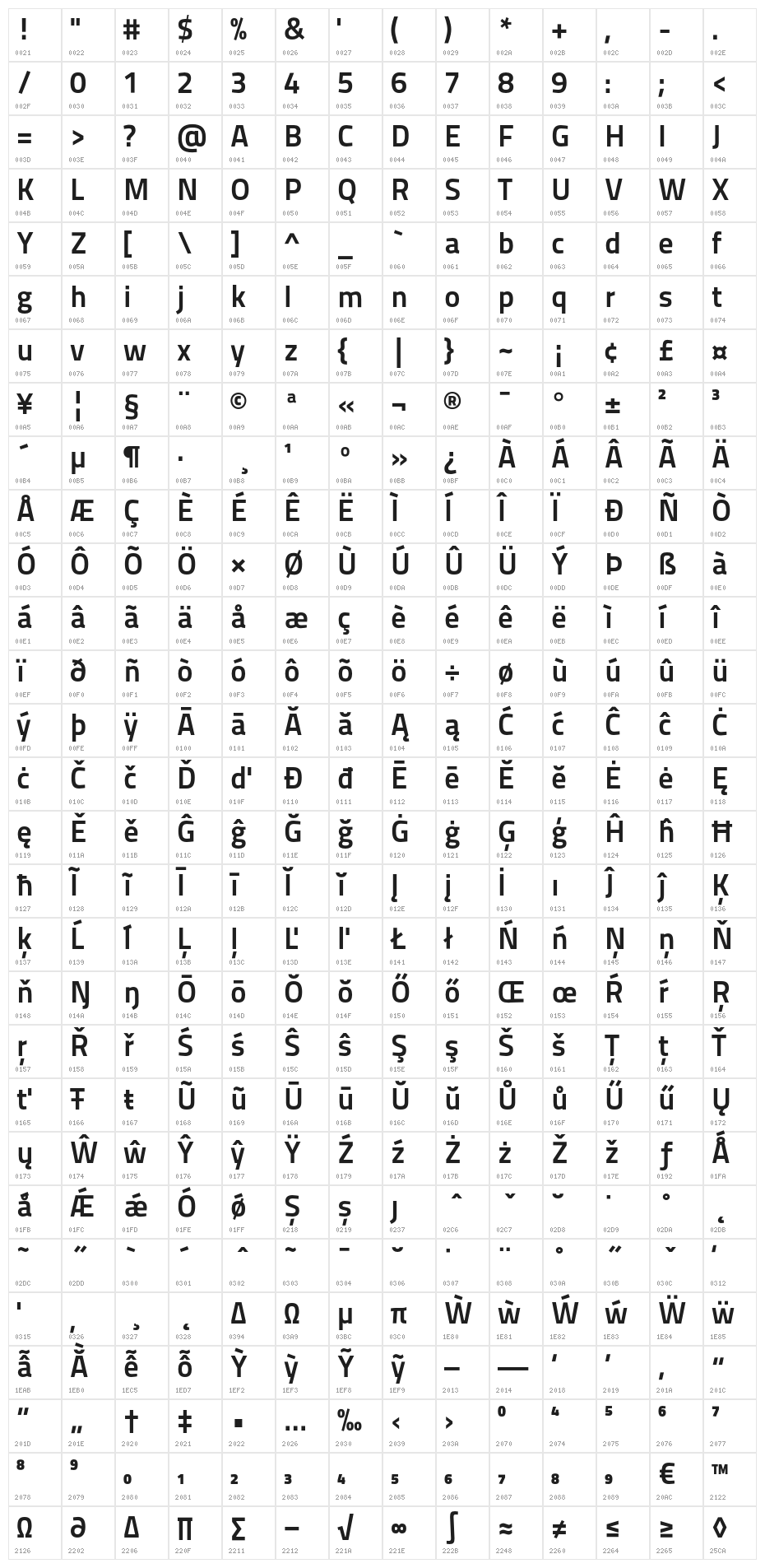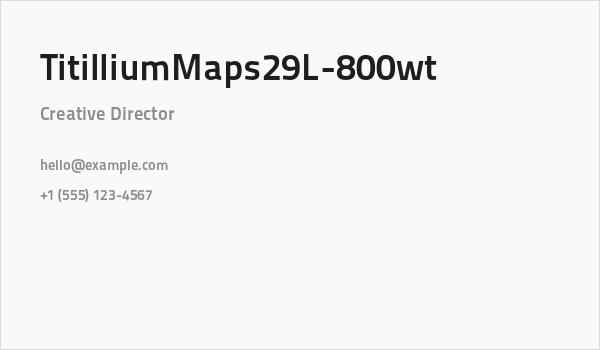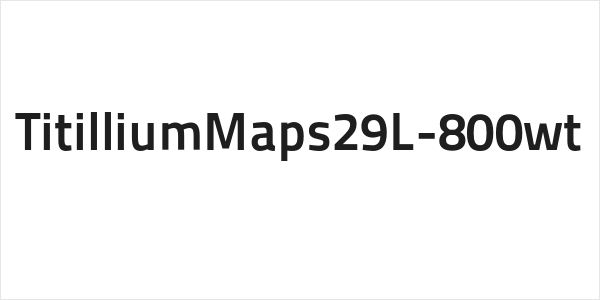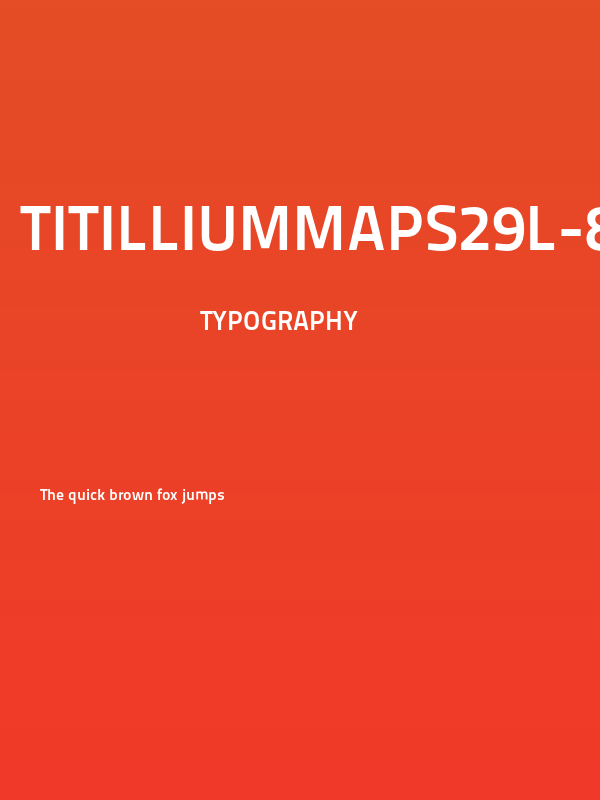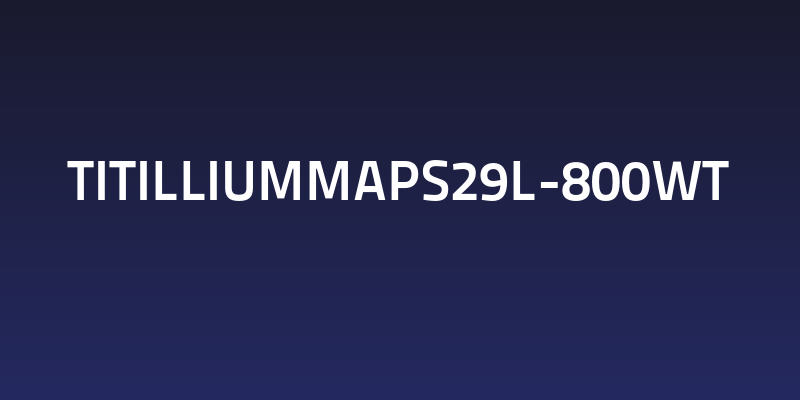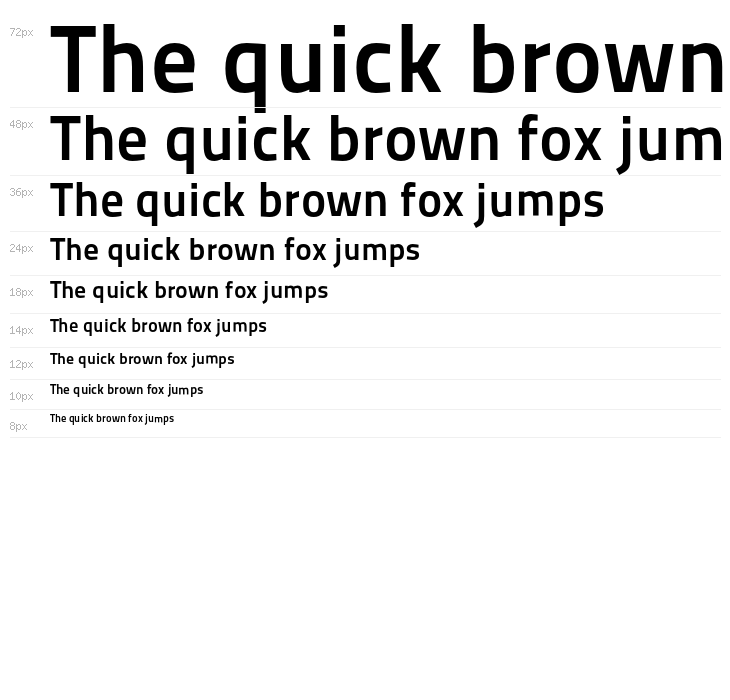
TitilliumMaps29L-800wt Font
TitilliumMaps29L-800wt Description
This font features a clean and modern sans-serif design, characterized by its geometric shapes and uniform stroke widths. The uppercase letters are bold and assertive, while the lowercase letters maintain a consistent height, offering a balanced and harmonious appearance. The numerals are clear and easily distinguishable, making them suitable for both digital and print applications. Special characters are well-defined, ensuring versatility across various contexts. The overall design is sleek and professional, making it ideal for contemporary projects.